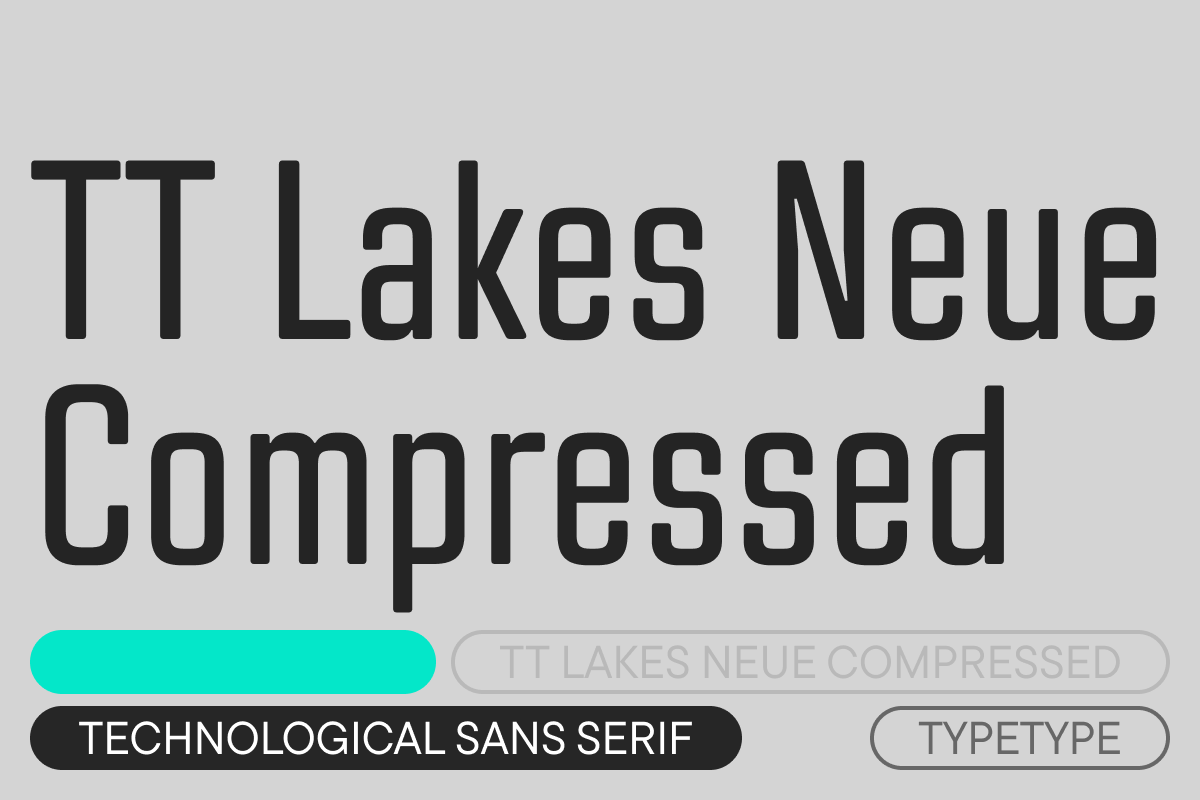
TT Lakes Neue Compressed ExtraLight Italic
TT Lakes Neue is a closed geometric sans serif with rounded rectangular forms and slightly vertically stretched proportions. TT Lakes Neue is an excellent fit for the gaming industry, as it will blend seamlessly into game interfaces across various genres. Technological sets can be used in architectural projects, in headlines of posters and magazines, and on building facades. Besides, this font will shine in logo design and branding.